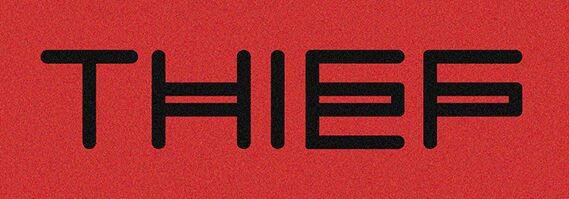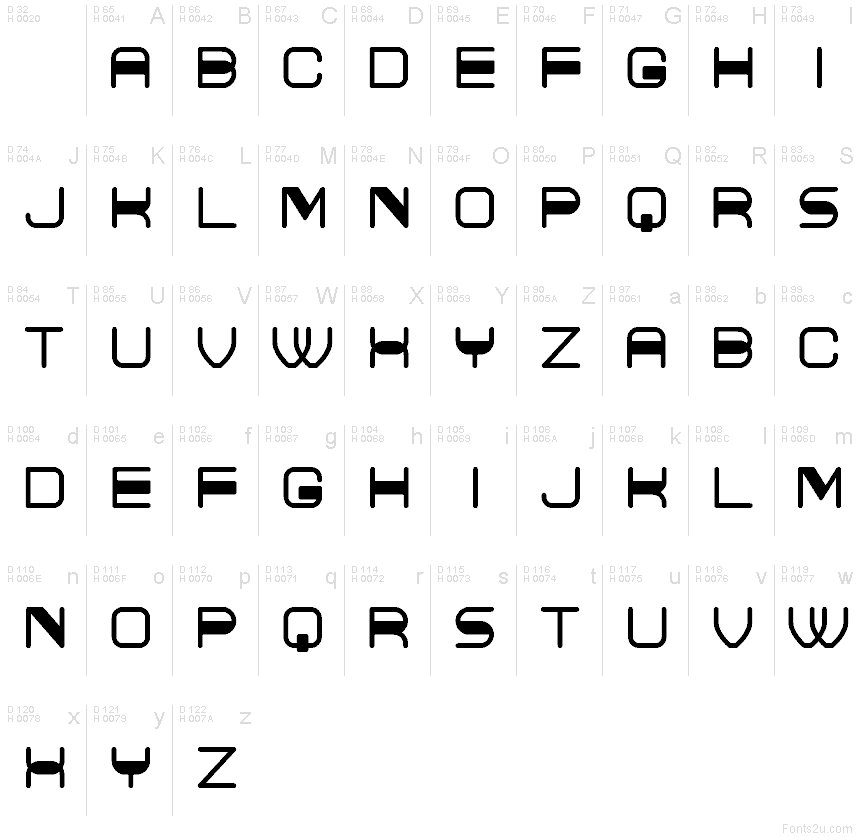
Thief Book Bold Regular
Thief Book Bold font by Vladimir Nikolic is a free futuristic display typeface that turns every word into a sleek, digital mark. Built from uniform, rounded strokes with precise, squared-off turns, it feels like a cross between a stealth gadget interface and a clean sci‑fi logo. The subtle gaps and open shapes give it a stealthy, almost coded vibe—like something you’d see glowing on a security panel or a high-tech vault door.
Using Thief Book Bold, your titles instantly gain a focused, high-tech tension that’s hard to fake with more generic fonts. This free font shines on game titles, sci‑fi film posters, tech event graphics, esports branding, cyberpunk book covers, and futuristic UI mockups. Pair it with a simple, neutral sans serif in smaller text to keep the bold, cinematic letterforms doing the dramatic work.